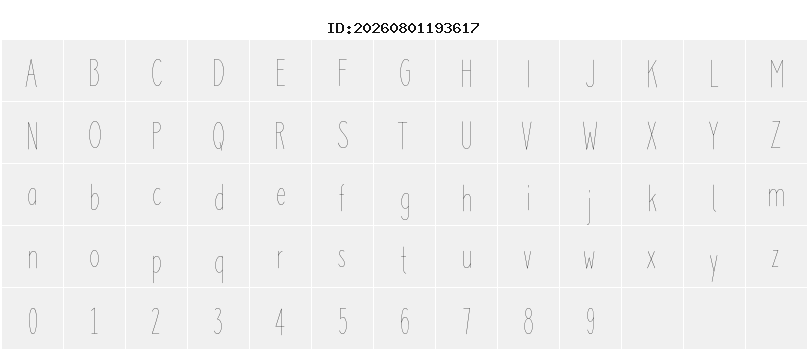
华光纤白玉丝 UltraLight Preview
• Font Name: 华光纤白玉丝 UltraLight
• Full Font Name: 华光纤白玉丝 UltraLight
• PostScript Name: 华光纤白玉丝-UltraLight
• Character Count: 7161
About 华光纤白玉丝 UltraLight.TTF
华光纤白玉丝 UltraLight.TTF is a modern, elegant sans-serif font designed for ultimate readability and visual harmony. Perfect for branding, headlines, web design, and print materials.